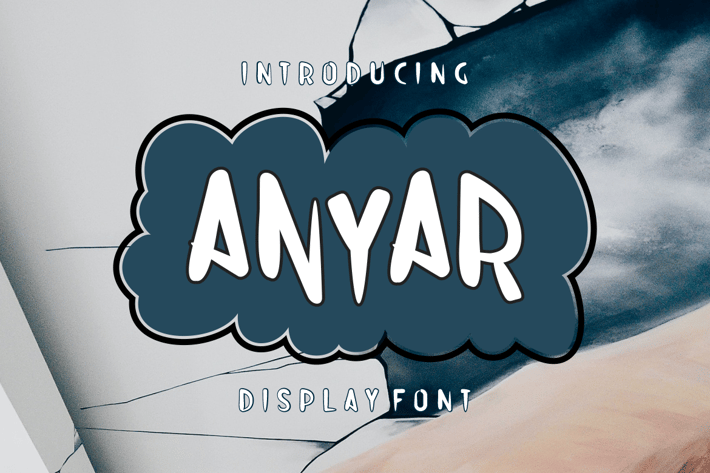
ANYAR FONT
Introducing our new product ANYAR FONT - Modern Font
ANYAR FONT - Modern Font is a bold and authentic display font. The font is suitable for any branding project like logo, t-shirt printing, esport, and many more. outstanding in a wide range of contexts.